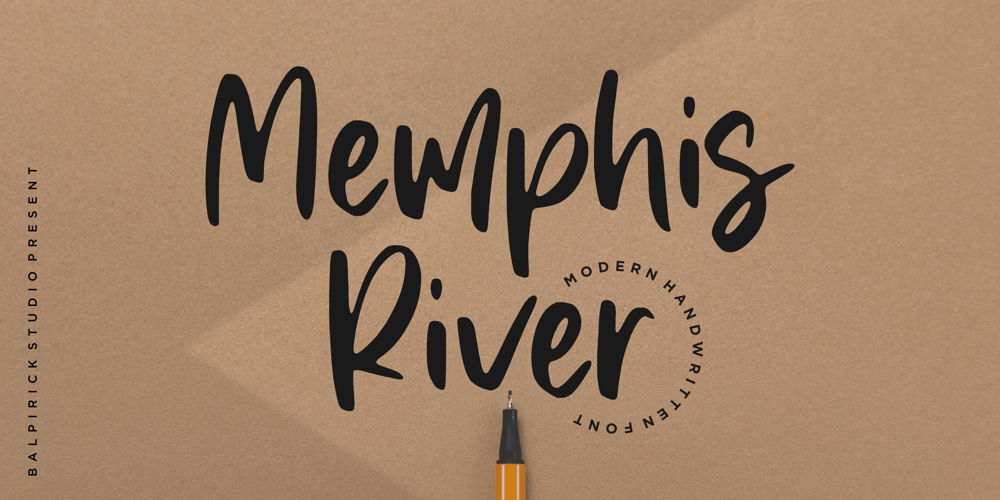
Memphis River Font Family was designed by Restu Angga and published by Balpirick. Memphis River contains 1 styles and family package options. Memphis River is a Modern Handwritten Font.Memphis River is a unique and elegant handwritten font. It looks beautiful on a variety of designs requiring a personalized style, such as wedding invitations, thank you cards, weddings, greeting cards, logos and so on. Memphis River also multilingual support.Enjoy the font, feel free to comment or feedback, send me PM or email.Thank you!